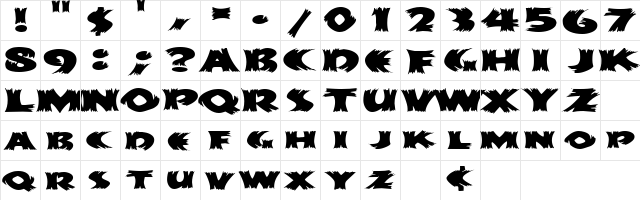
Halloween_Scarecrow Regular
Design Context for Halloween_Scarecrow Typeface
Halloween_Scarecrow is a composed and adaptable typeface that performs quietly and consistently across a wide range of design contexts.